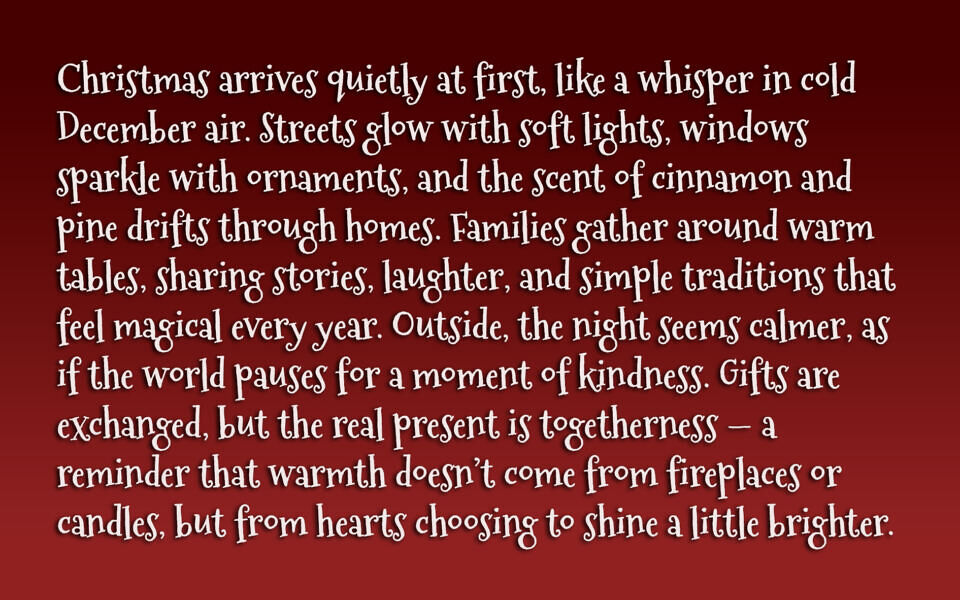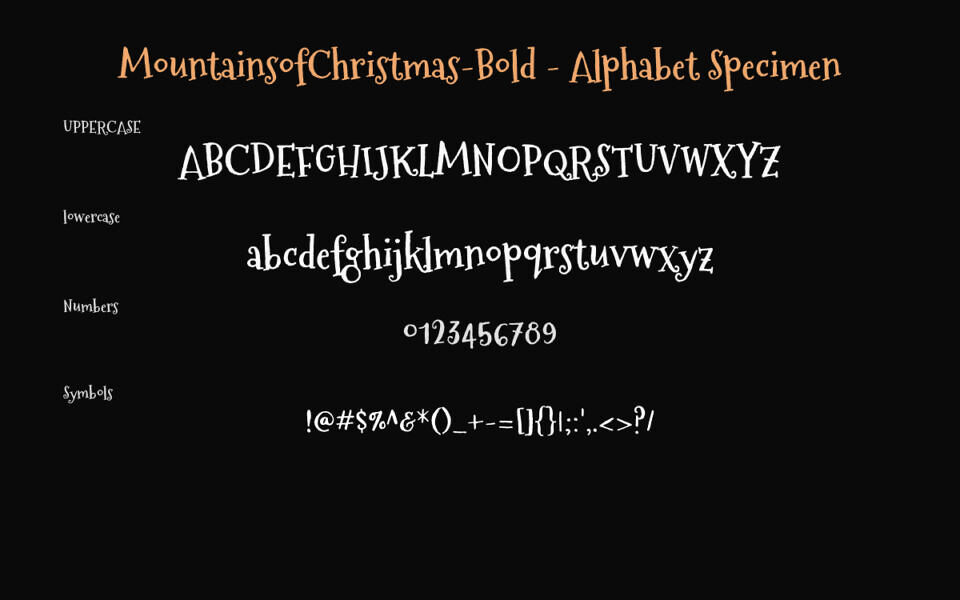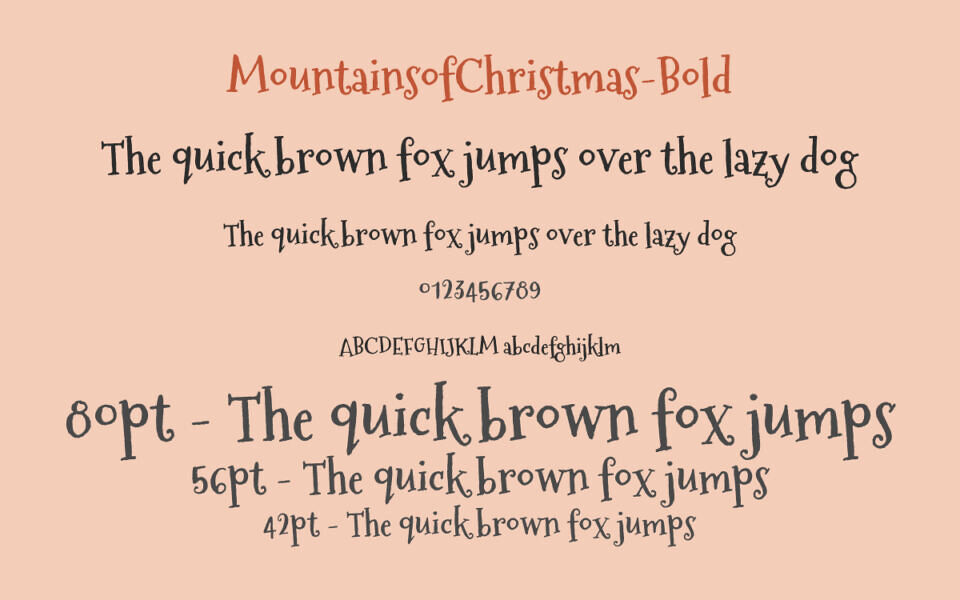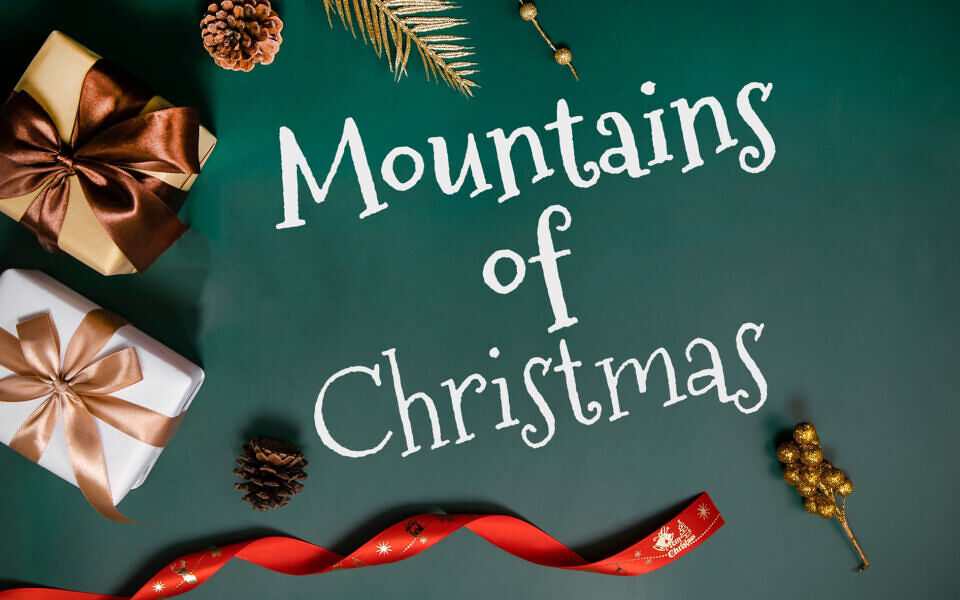
Mountains of Christmas Font
Ever wonder what font sugarplum fairies dream about? Mountains of Christmas by the talented lettering artist Crystal Kluge is the perfect casual and playful serif font when you want to give your words a warm personal touch.
Mountains of Christmas Font includes Regular and Bold.